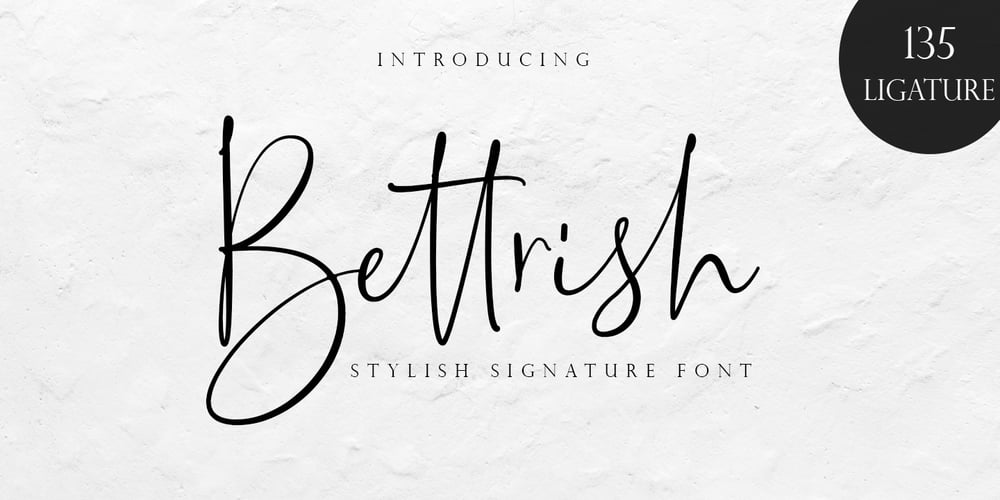
Bettrish Font Family was designed by Winarno and published by Bluestudio. Bettrish contains 2 styles and family package options. Bettrish is made to resemble scratchy quick hand writing, so it looks like a natural style like your own scribbles. Bettrish offers beautiful typographic harmony for a variety of design projects, including logos & branding, wedding designs, social media posts, advertisements, product designs, magazines and more. What’s included? -Bettrish Regular (OTF) -Bettrish Italic (OTF) -Ligatures -Multilingual support